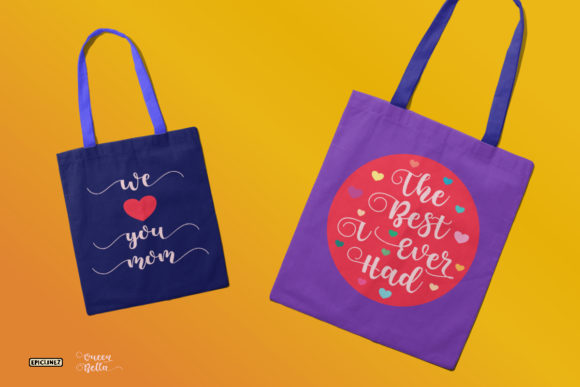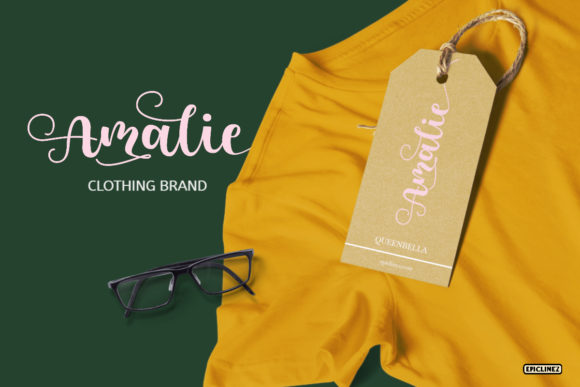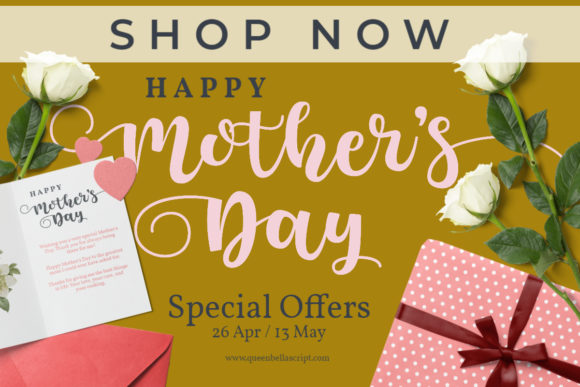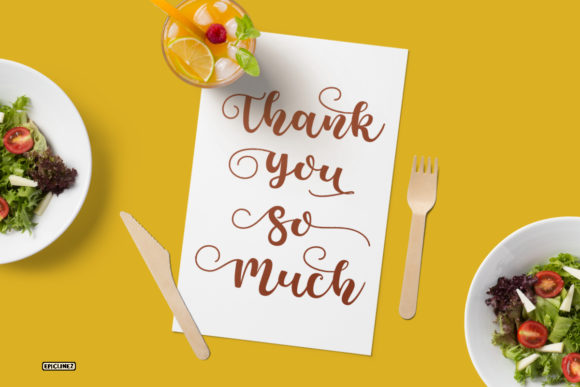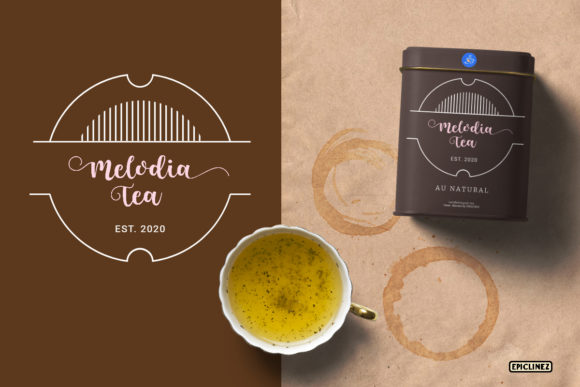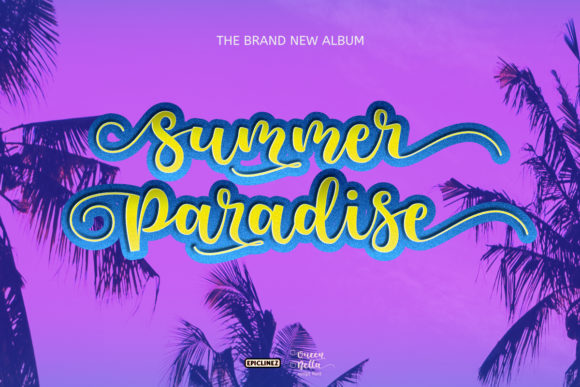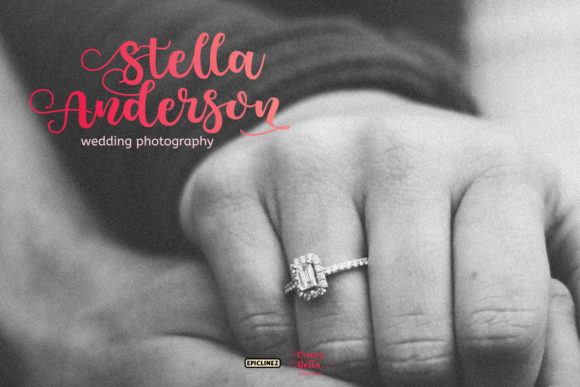
Queen Bella Font
About Queen Bella Font
Queen Bella is a bold and bouncy handwritten script font. Use it for any design project that requires a personalized appearance!